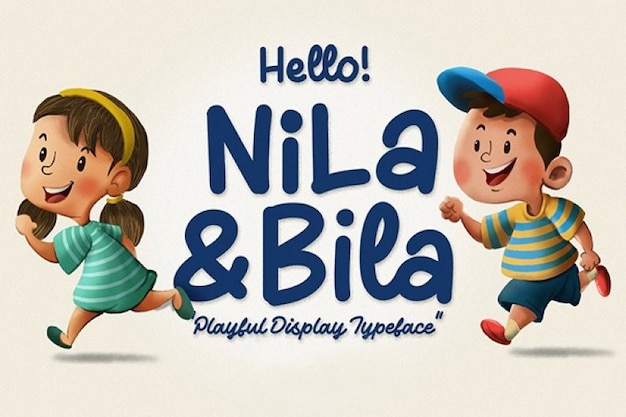
Nila and Bila Font
The Nila and Bila font is the perfect example of a childish and playful typeface. Its funny look will definitely make your project stand out! You can use it for many purposes and projects, especially for any theme related to children. Download it now and start designing!